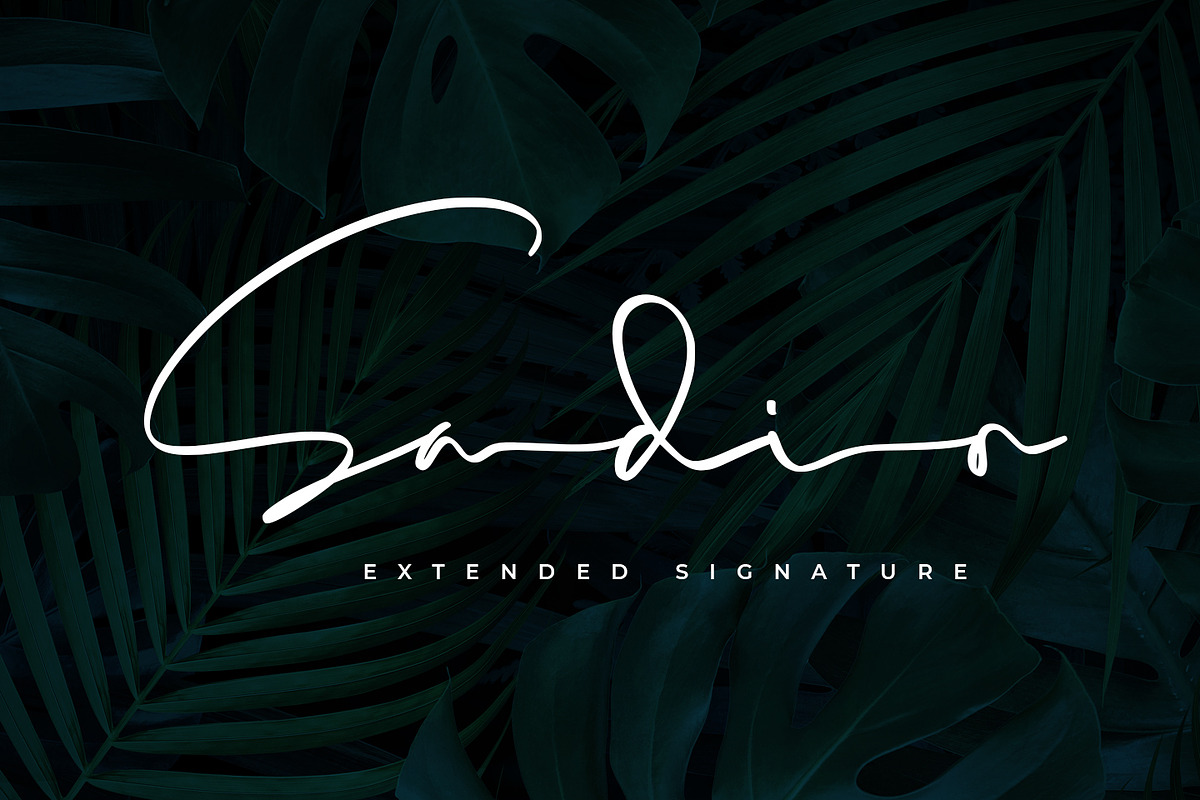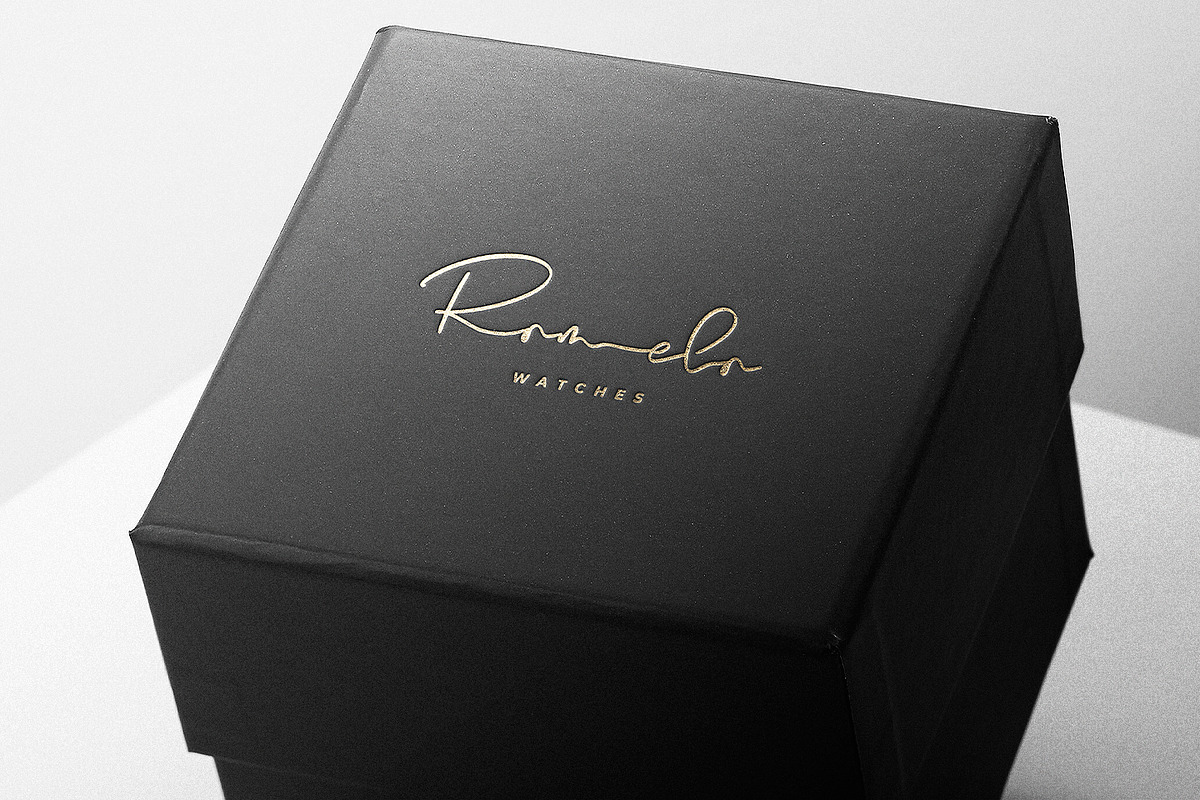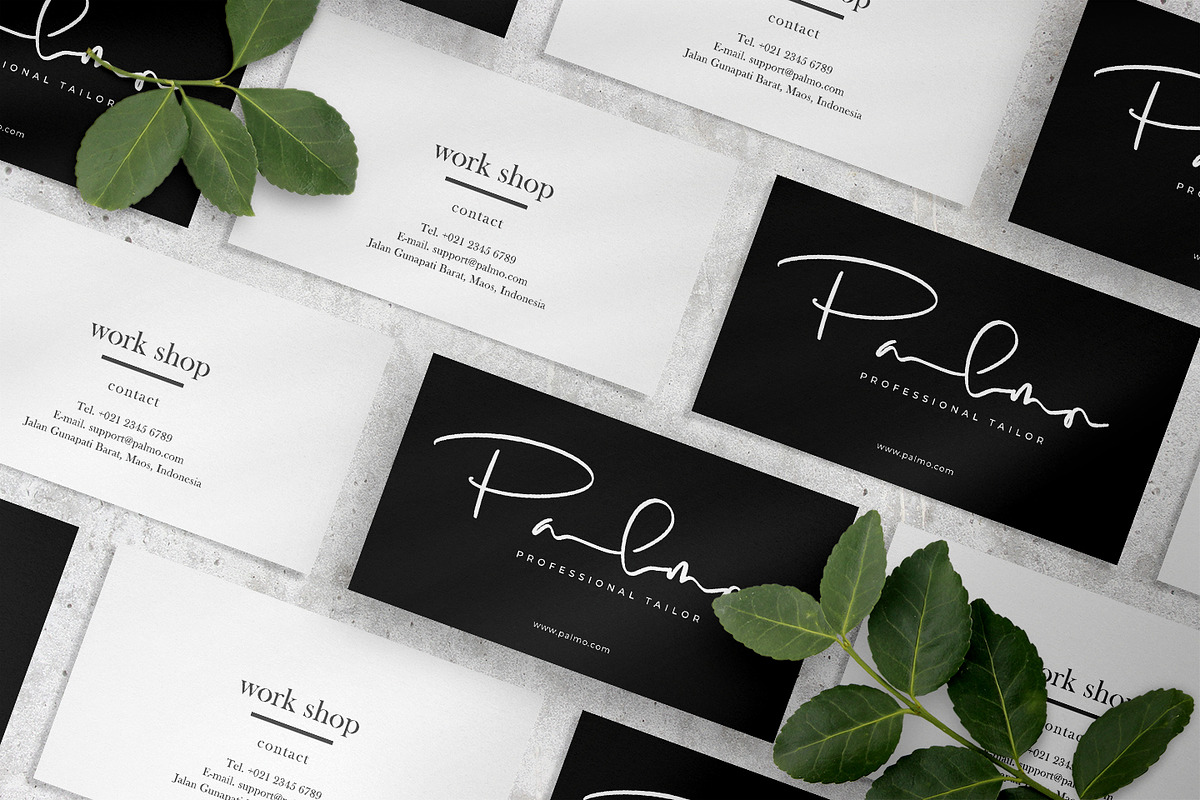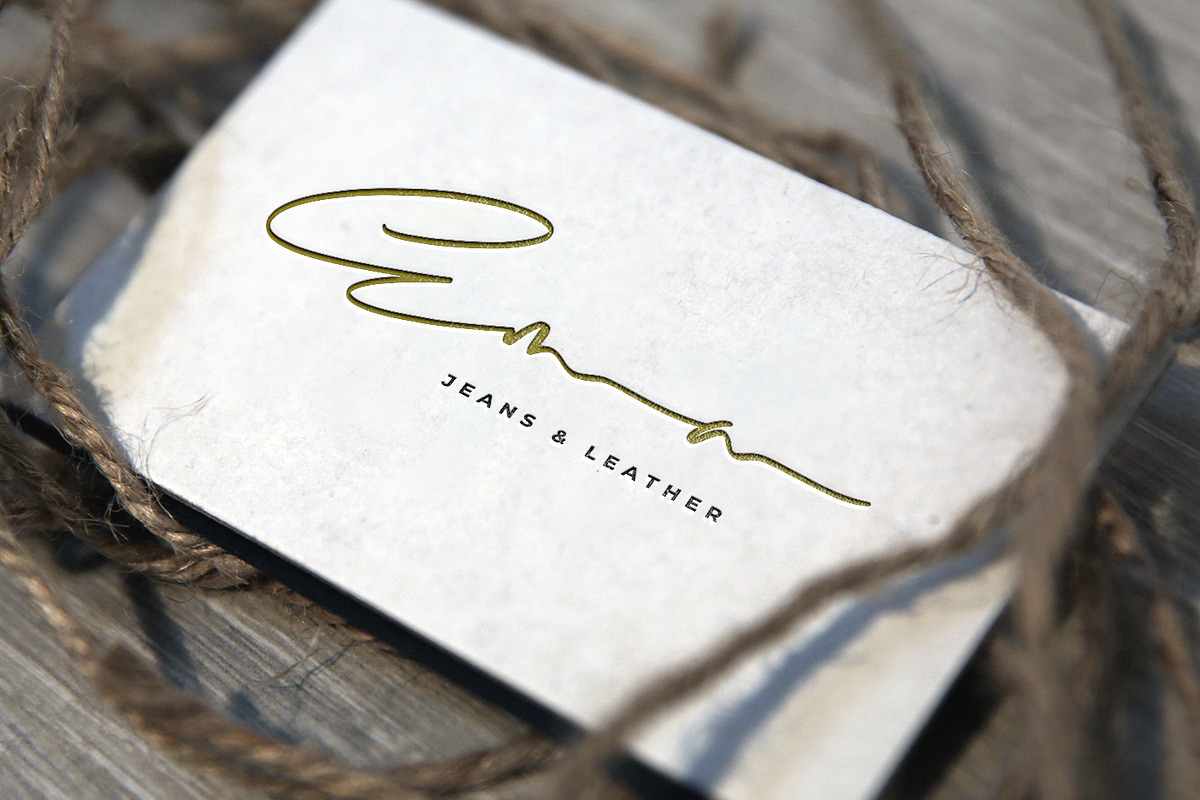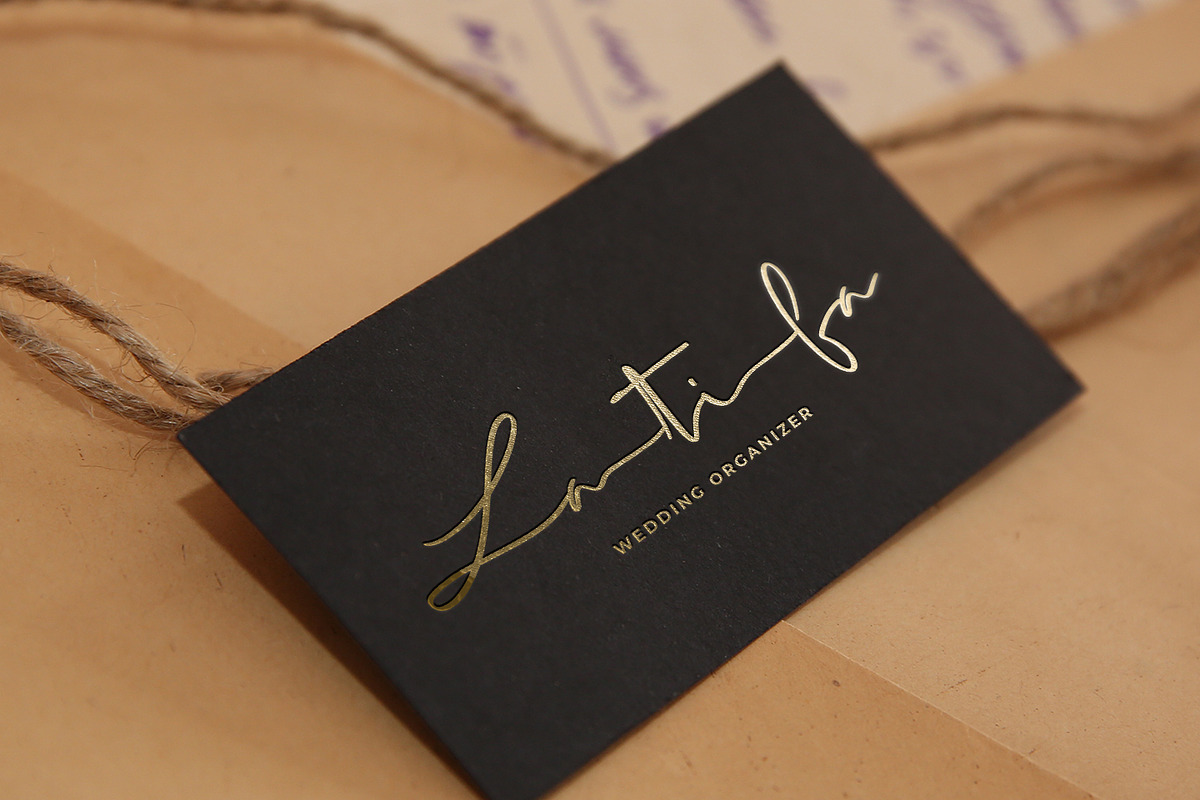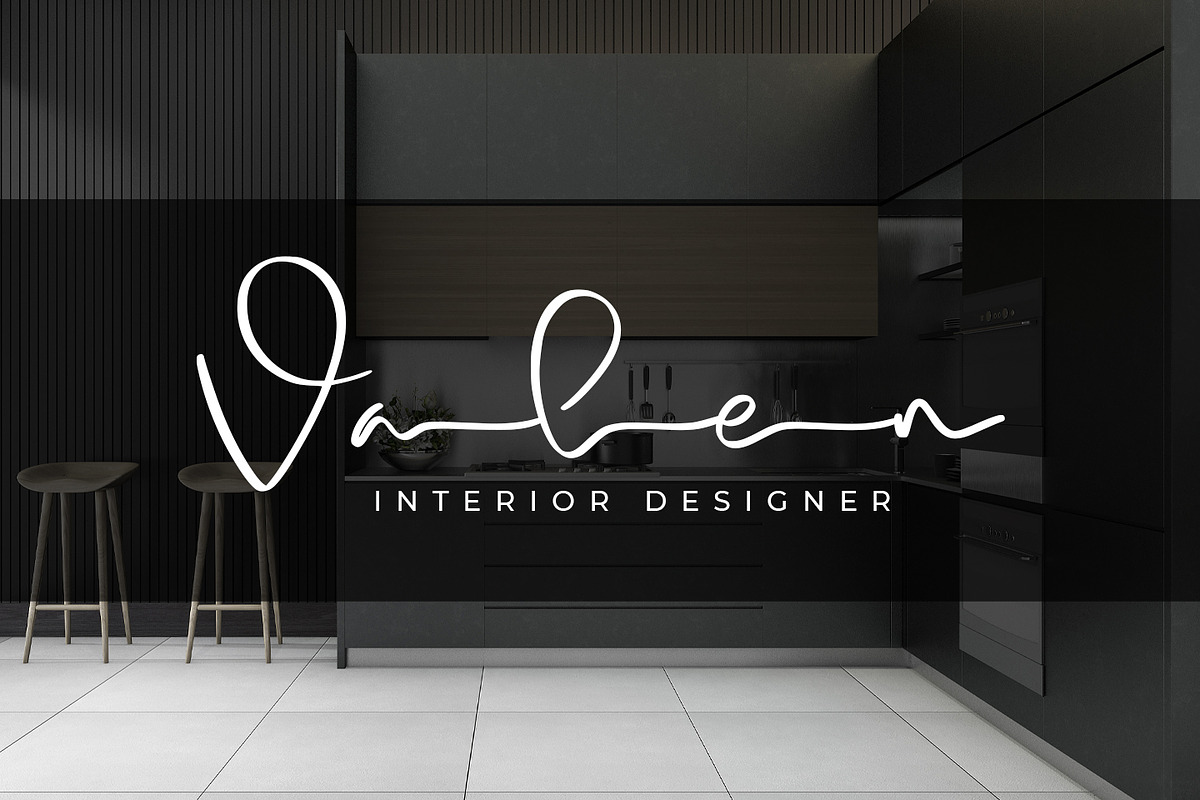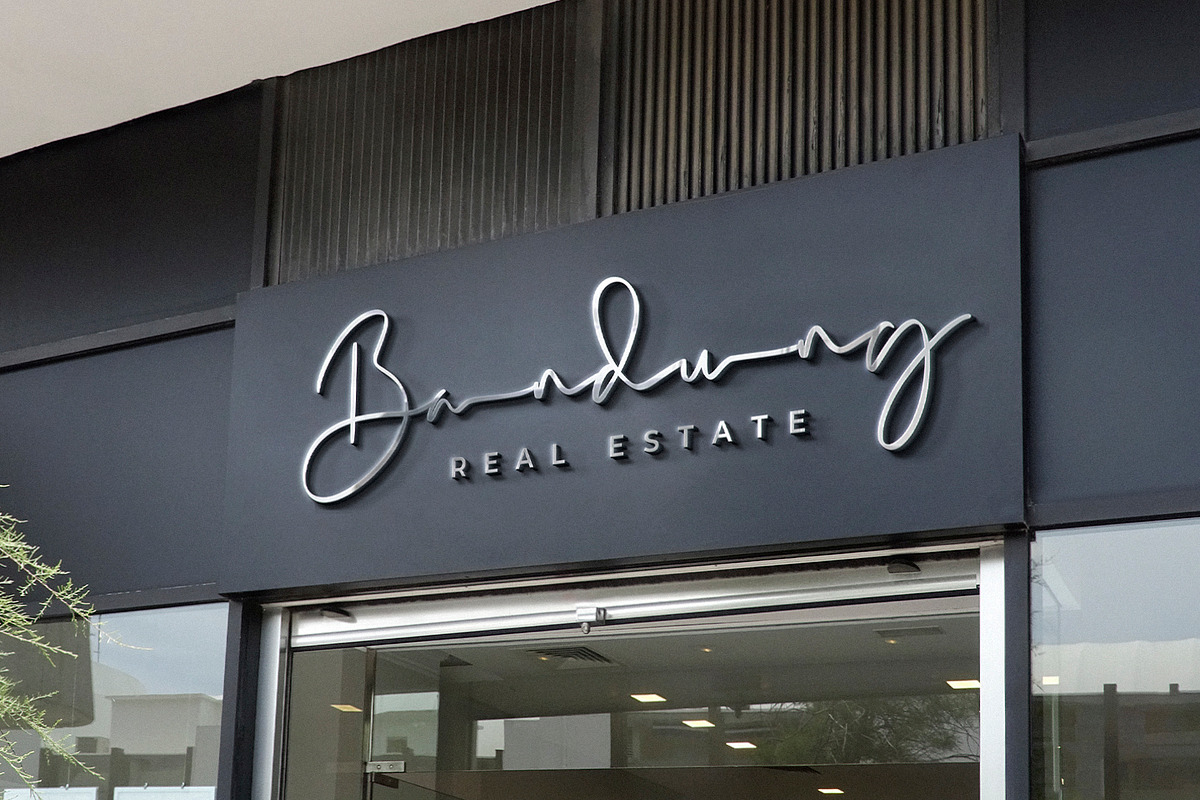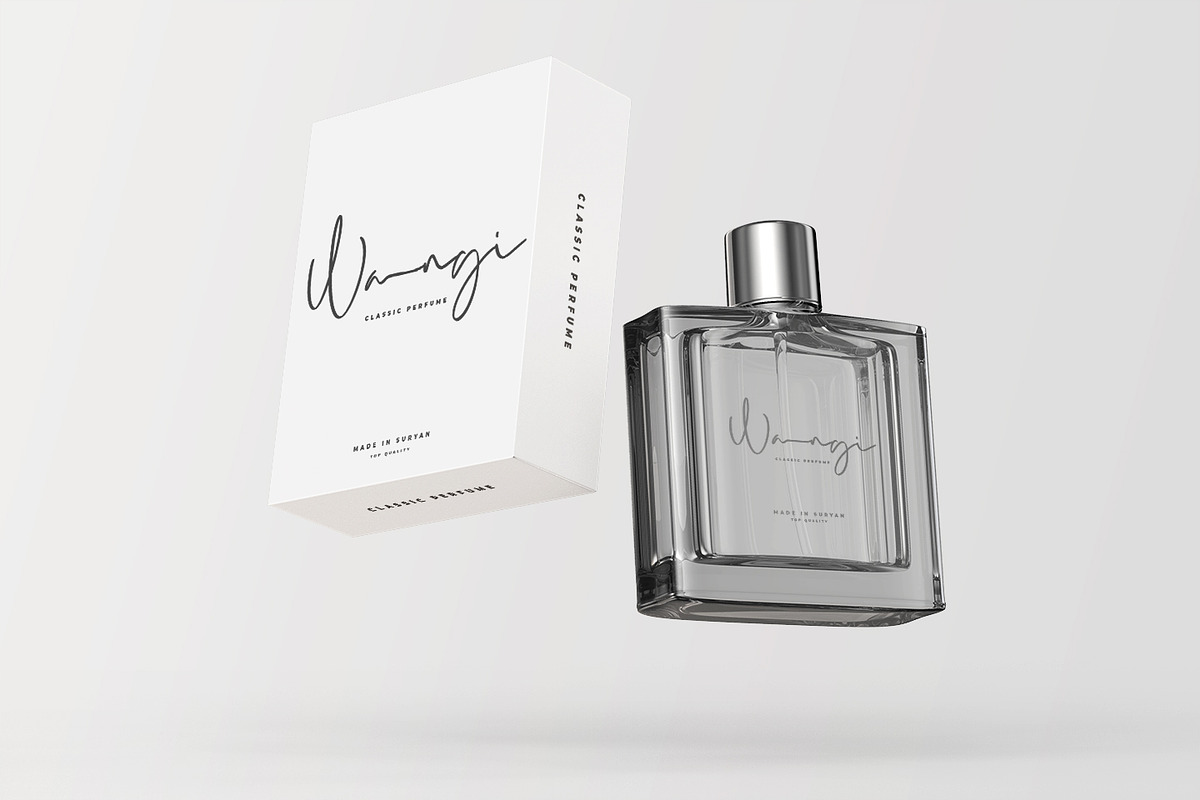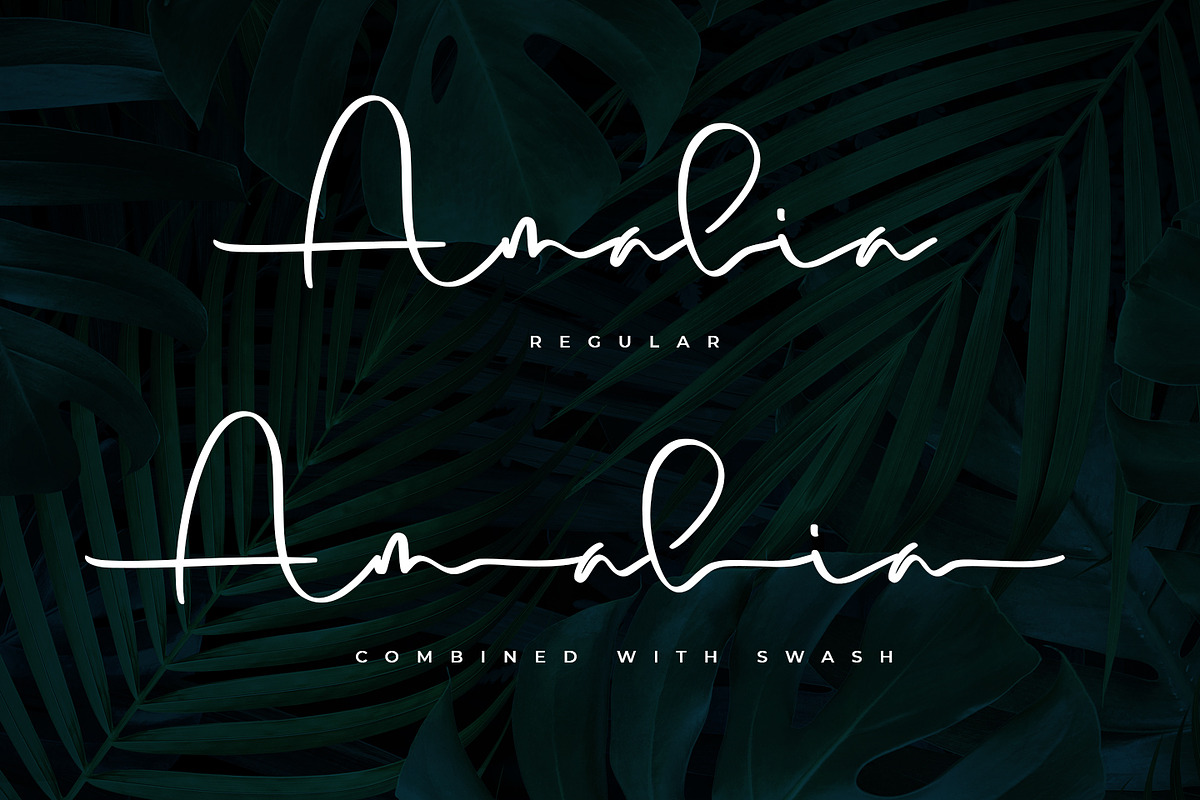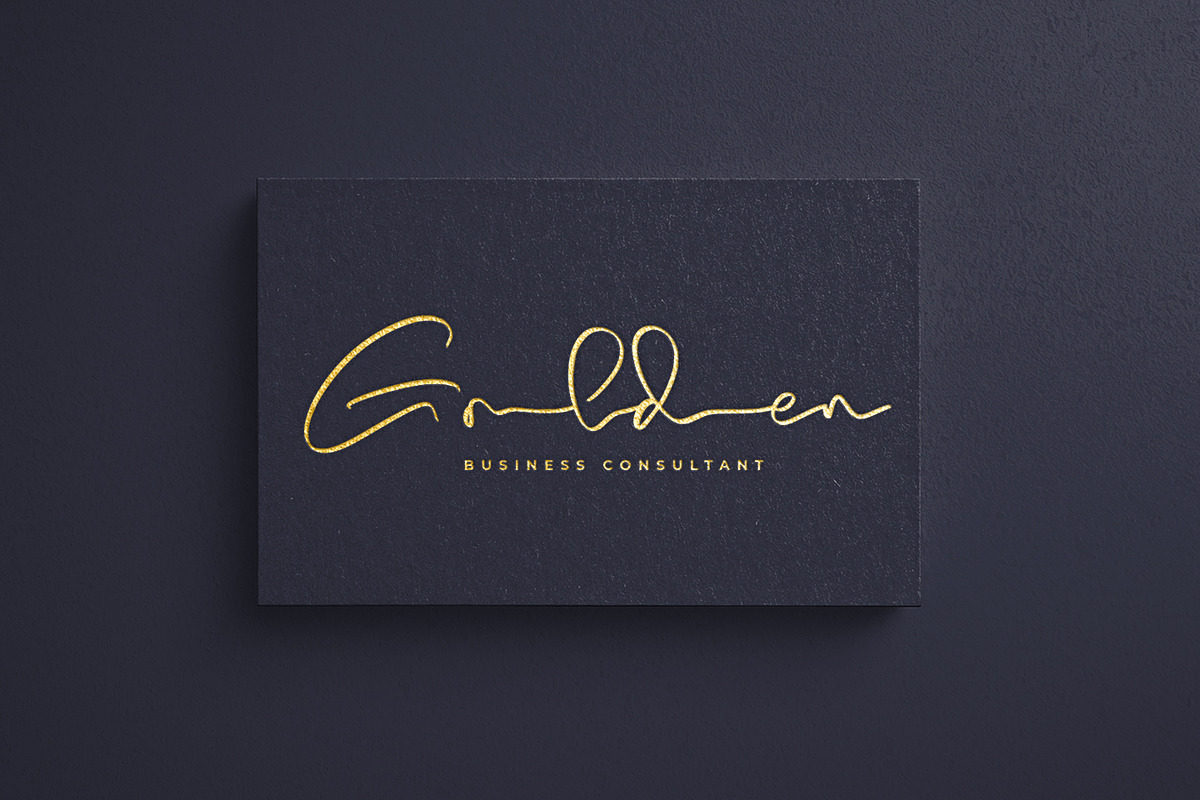
Sadio
introducing
SADIO - the extended signature -
This font is created specifically for logotypes. Yes, this font is only suitable for making logos or headline text. This font is not suitable for use in subtitles or main content. It is great for branding, business card, signature, and more.
I also created the lowercase swash to complete this product. You can combine the standard character and the swash. It is perfect. Very easy to access the lowercase swash, you only need to add underscore twice after the lowercase characters. For example a it will be a with swash.